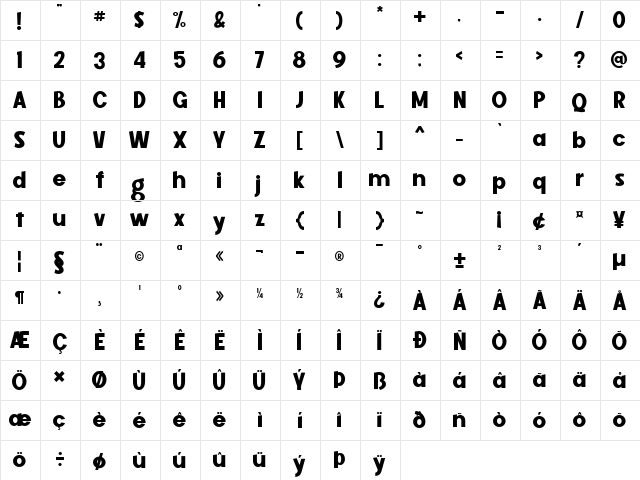
Midnight Workers Regular
| Foundry | Figuree Studio |
| Designer | Toni Dzulham |
Design Context for Midnight Workers Typeface
Midnight Workers offers clean, dependable letterforms without strong stylistic allegiance, making it a practical choice for designers who need flexibility.